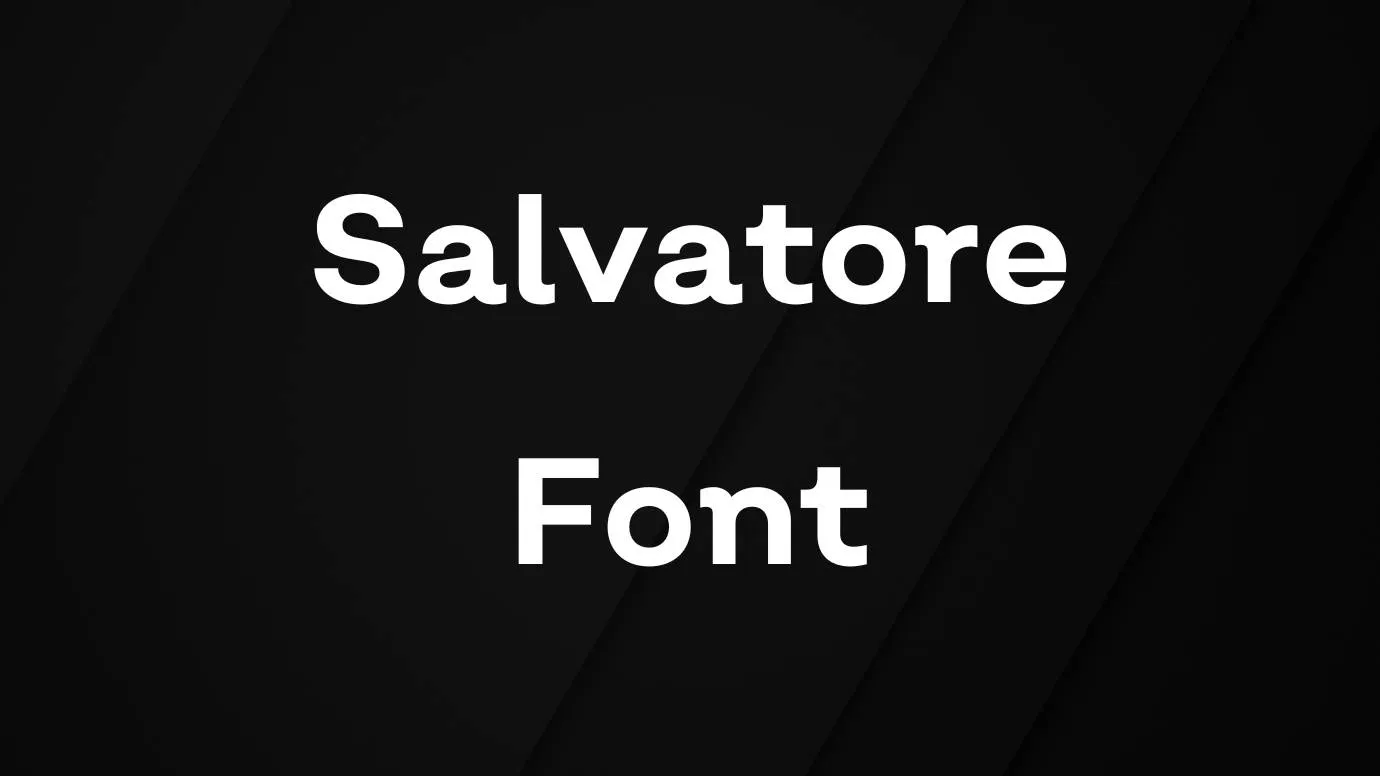
Salvatore Font Family is a modern and smooth-looking typeface that comes in sans serif family. Diego Aravena is an intelligent designer who works on the creation of this typeface which was published through W Type Foundry.
This font family is good for making combinations with cool sans font. It consists of powerful features that are easily specified in designing languages.
Salvatore Font
NameSalvatore Font
TypeSans Serif
DesignerDiego Aravena